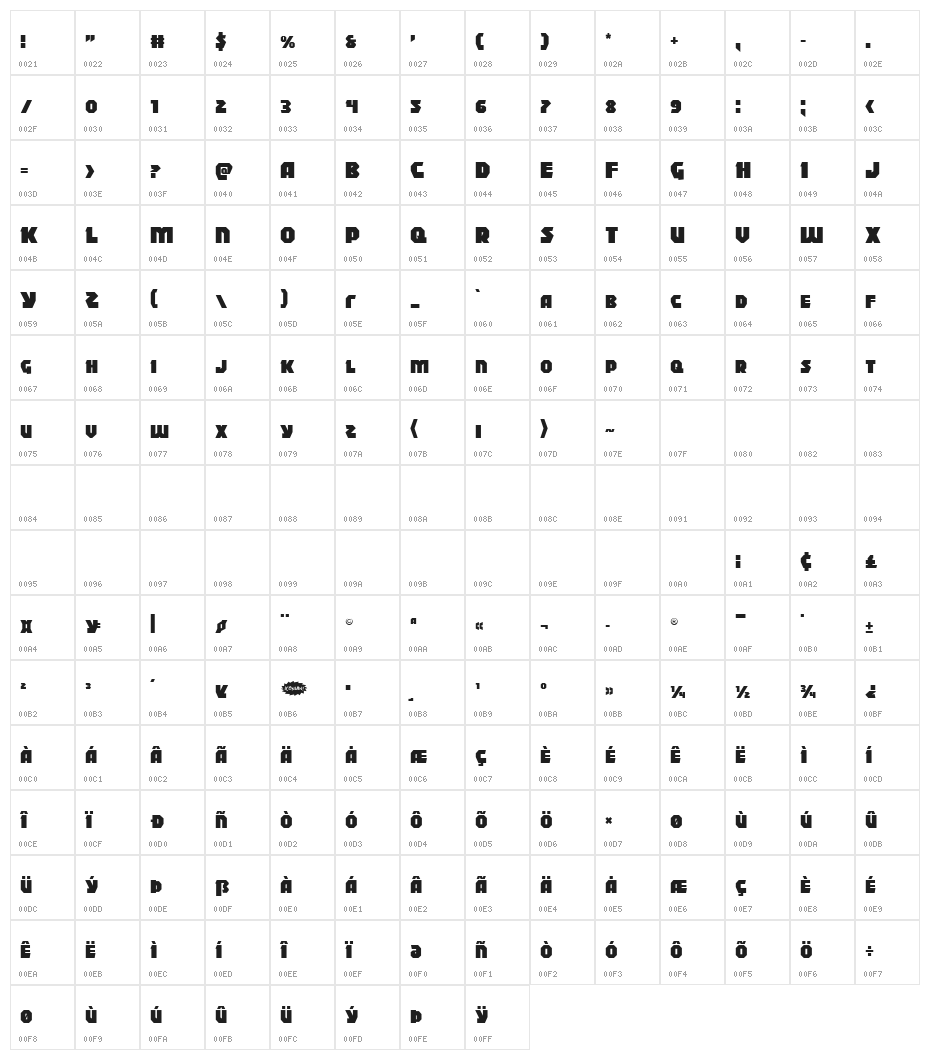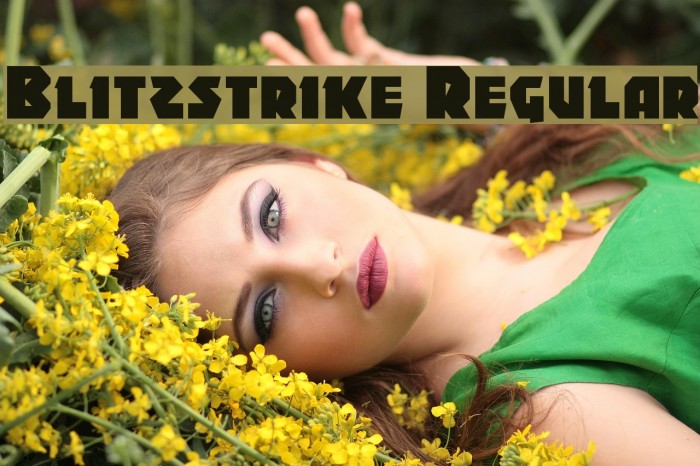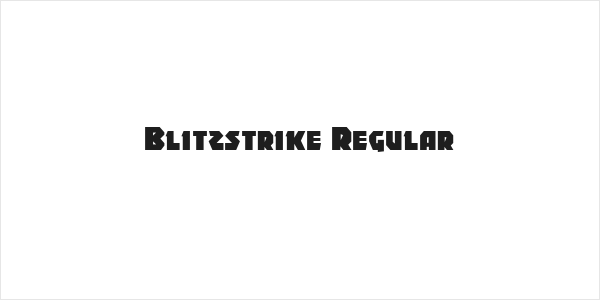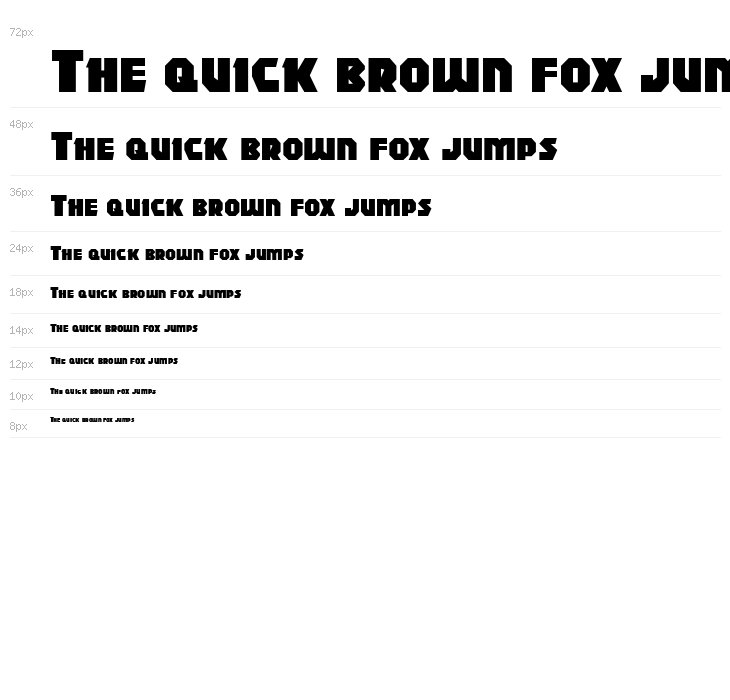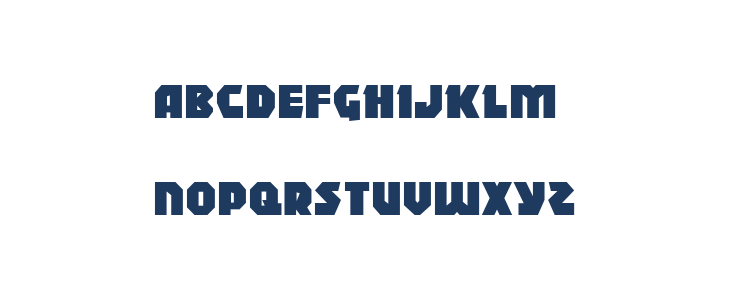
Blitzstrike Regular Font
Blitzstrike Regular Description
This font features a bold and striking design with angular, geometric shapes that convey a sense of strength and modernity. The characters are uniformly thick, creating a consistent and impactful visual presence. The uppercase letters are particularly prominent, with sharp edges and a block-like appearance that makes them stand out. The numerals and special characters maintain this bold style, ensuring a cohesive look across all text elements. The font's design is ideal for projects that require a strong, attention-grabbing typeface.
| Proposed Projects | Ideal for branding, posters, headlines, and any design needing a bold, modern typeface. |